From TP’s Stack: “Johnston’s Underground Type”
Today, I would like to introduce “Johnston’s Underground Type,” written by Justin Howes, and translated by Yoshio Goto.
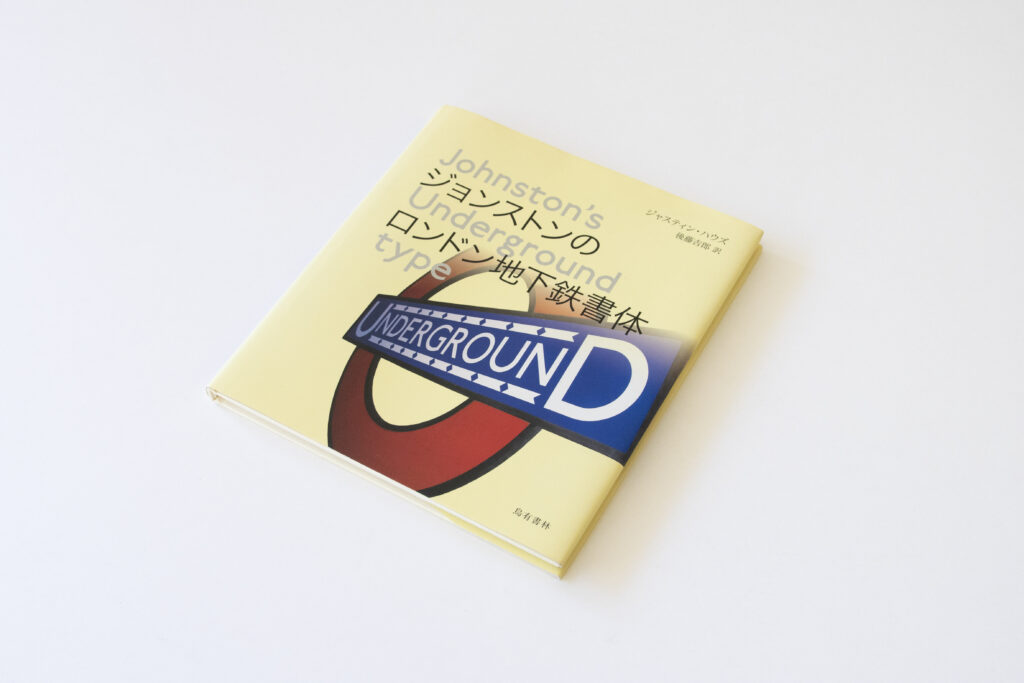
The underground type Johnston sans was created for the Transport for London in 1916. The achievements of Edward Johnston, who created the typeface, as well as the typeface creation process, the bull’s eye logo, and re-designed New Johnston, etc. are introduced and explained along with a variety of other materials in this book.
The process of corrections of character shape drawn many times upon trial and error, and the fact that Johnston sans significantly influenced sans-serif typeface later are very interesting. This book is recommended for anybody who is interested in learning about the history of dedicated typeface and corporate identity design.
“Johnston’s Underground Type”